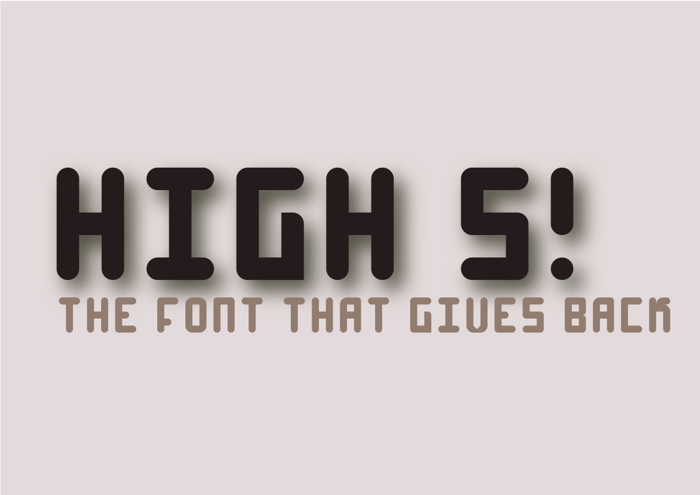
High 4 Font
This is my first font i've ever created. Its a curvy pixel-ed font (That's what i like to describe it as xP). I was originally debating whether to call the font high 4 or high 5, The actual name is high five its just I cant truly change the name of a .ttf file.